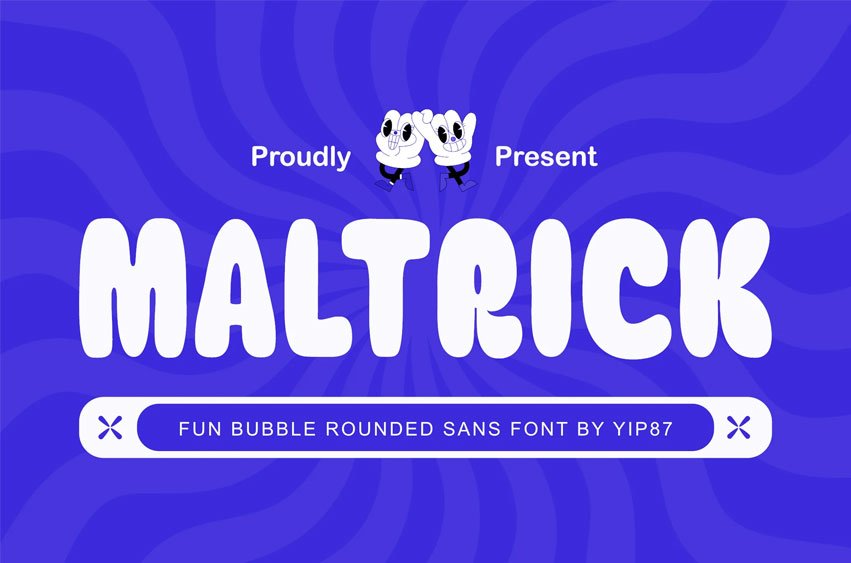
Maltrick Font is a cute and playful font crafted to infuse your designs with fun and personality. Its cheerful style is ideal for adding a touch of charm and creativity to various projects, such as branding, social media graphics, children’s books, comics, cartoon games, food bazaars, bakery and cafes, invitations, holiday posters, packaging, advertising, greeting cards, and any creative project that calls for a delightful and whimsical touch.
Maltrick is designed to help you create professional yet playful designs. Whether you’re a graphic designer, illustrator, or DIY creative, this font offers the tools to elevate your work with a lively, approachable vibe.